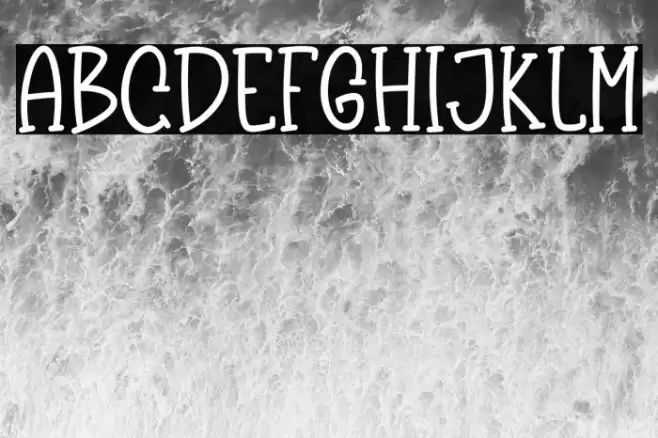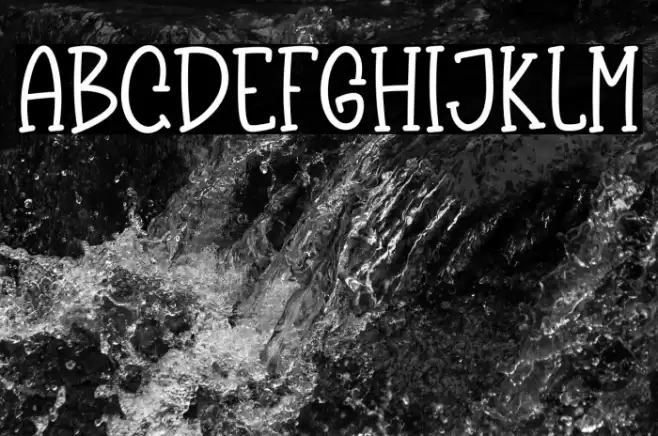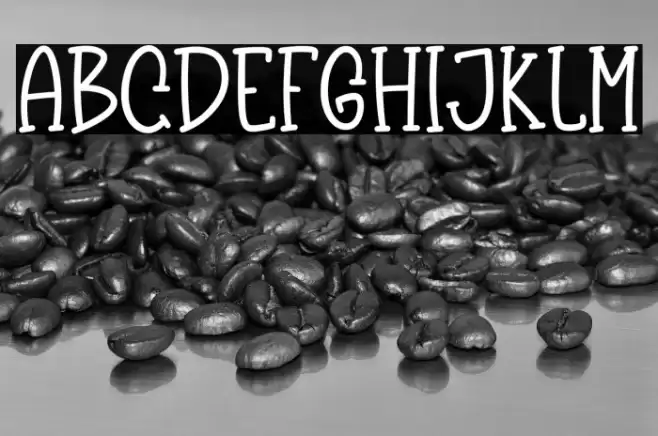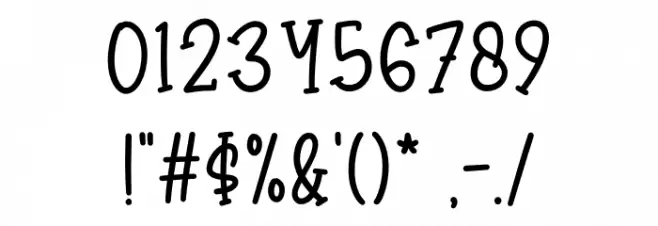
Cute Vampire Font
Cute Vampire Description
This playful and whimsical font features a hand-drawn style with a slightly irregular baseline, giving it a charming and informal appearance. The characters are tall and narrow, with rounded edges and a consistent stroke width that adds to its friendly and approachable feel. The uppercase letters are bold and prominent, while the lowercase letters maintain a consistent flow, making it suitable for casual and fun designs. The numerals and special characters are well-integrated, maintaining the font's overall quirky aesthetic.
A playful, hand-drawn font with a whimsical and informal style from Uncategorized fonts.
- Font: Cute Vampire
- Proposed Projects: Ideal for children's books, greeting cards, playful branding, and social media graphics.
- Overall Style: Playful